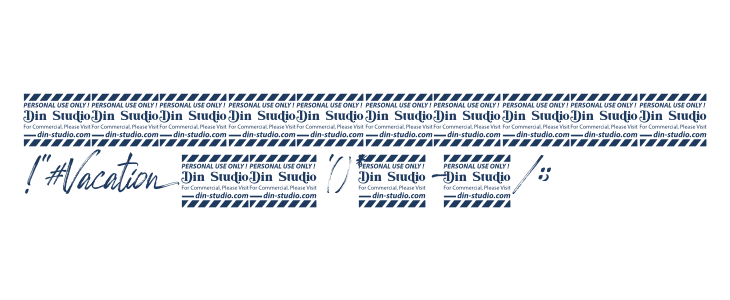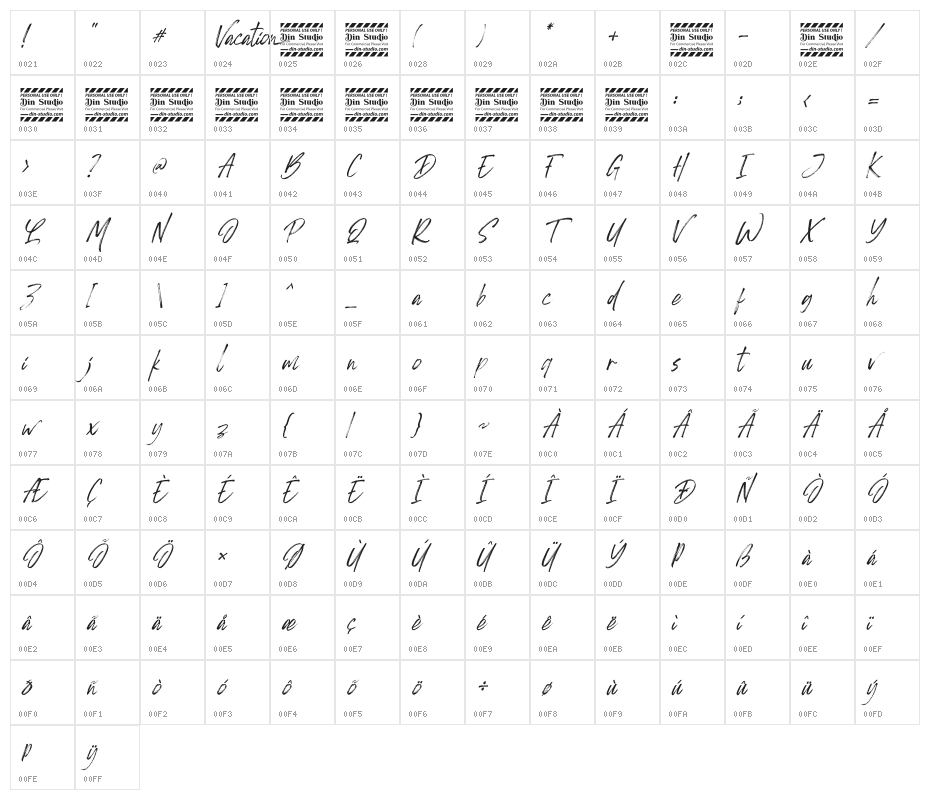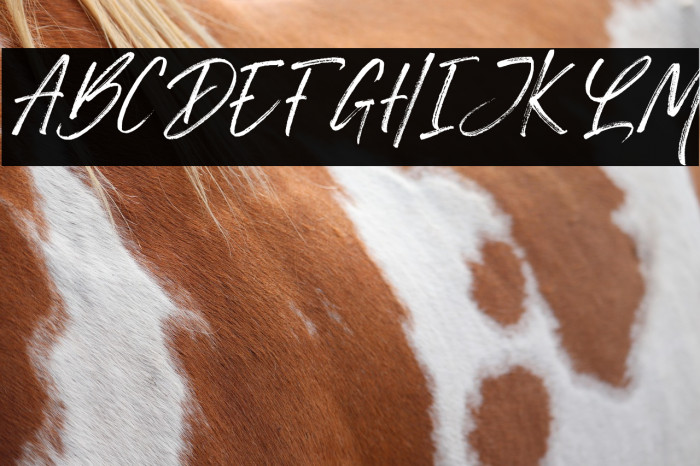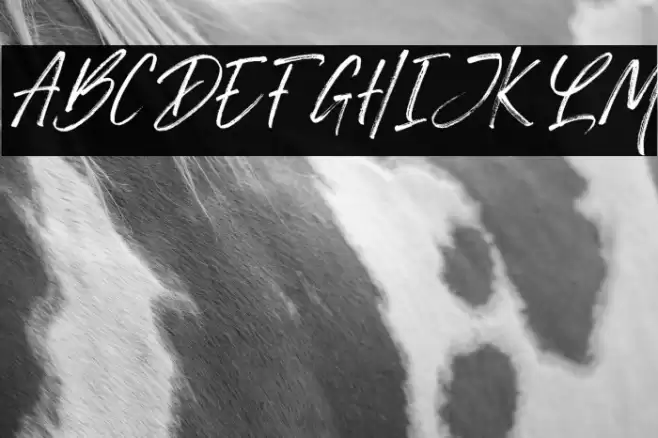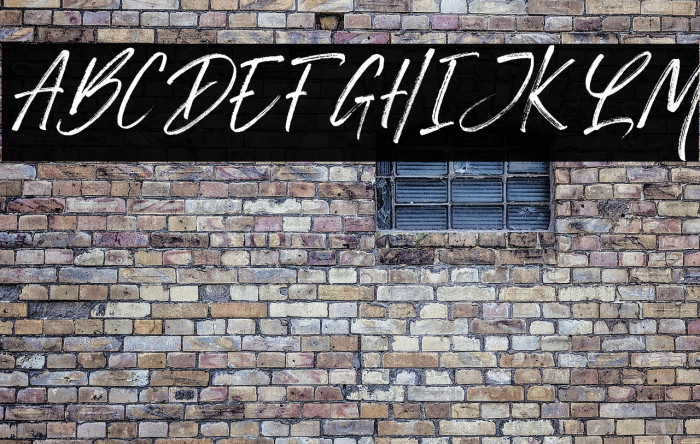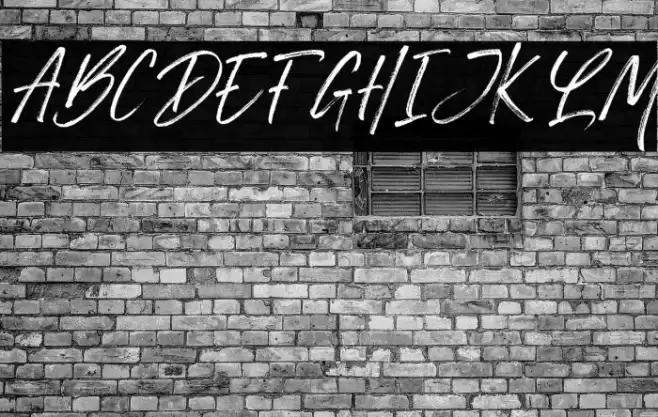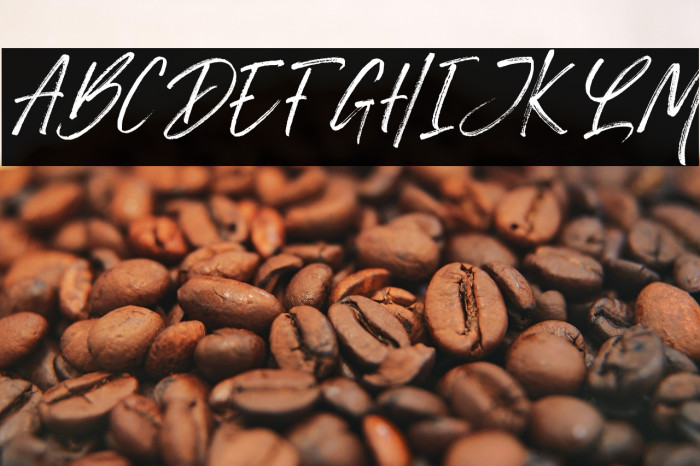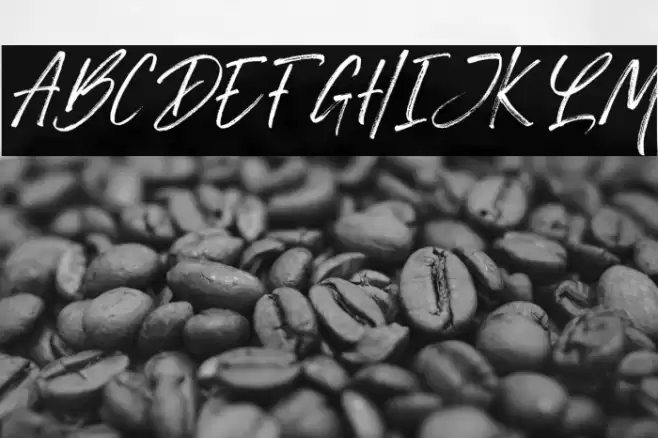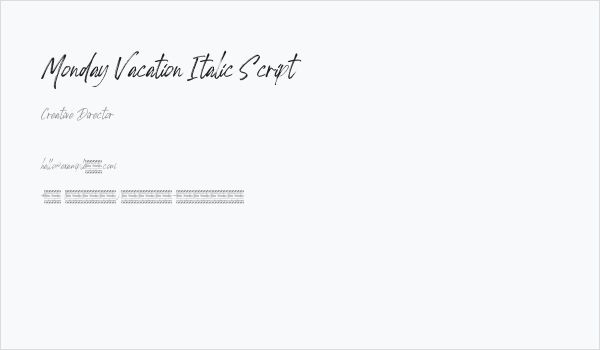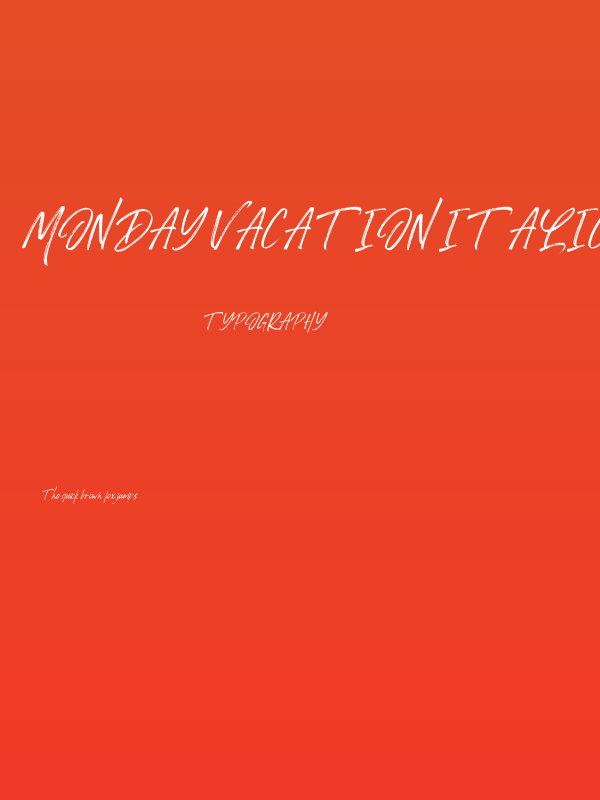
Monday Vacation Italic Script Font
Monday Vacation Italic Script Description
This font exhibits a dynamic and fluid script style, characterized by its italic slant and expressive brush strokes. The uppercase letters are bold and sweeping, with a natural flow that mimics handwritten calligraphy. The lowercase letters maintain a consistent style, offering a harmonious blend of elegance and casual flair. The numbers and special characters are crafted with the same attention to detail, ensuring a cohesive look across all glyphs. The overall appearance is both artistic and modern, making it suitable for creative and expressive design projects.